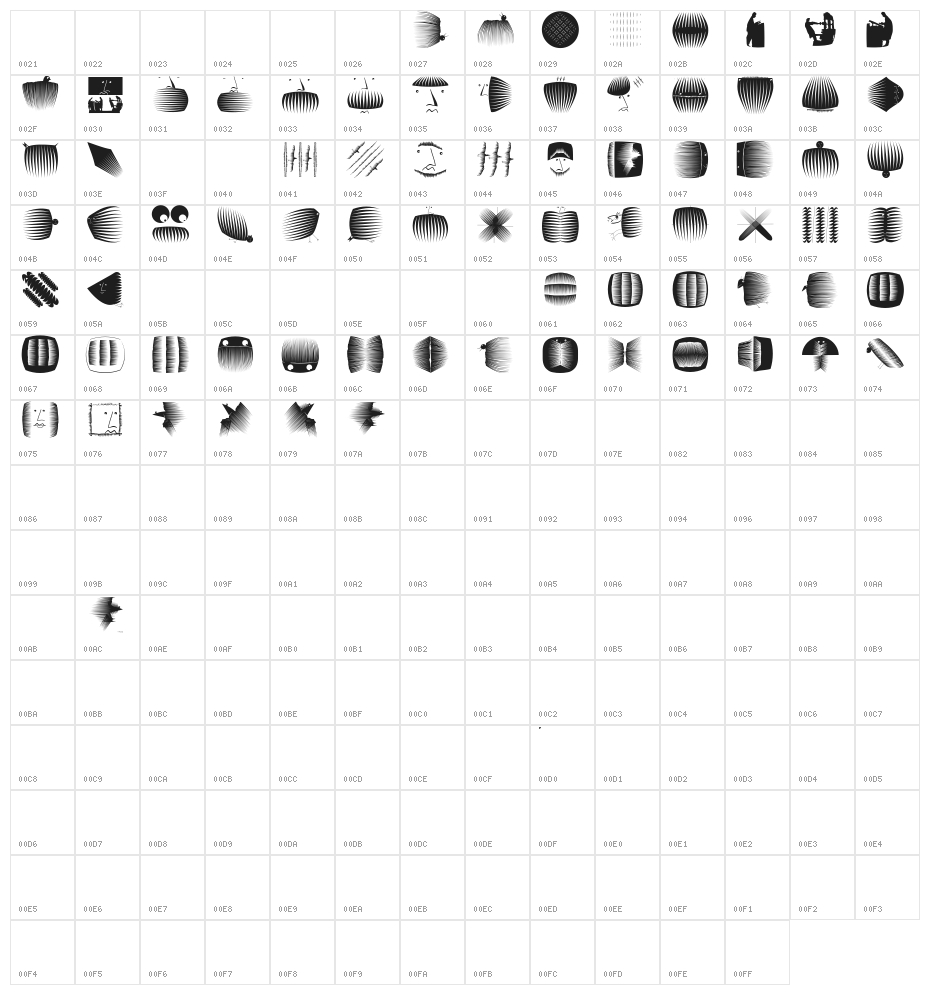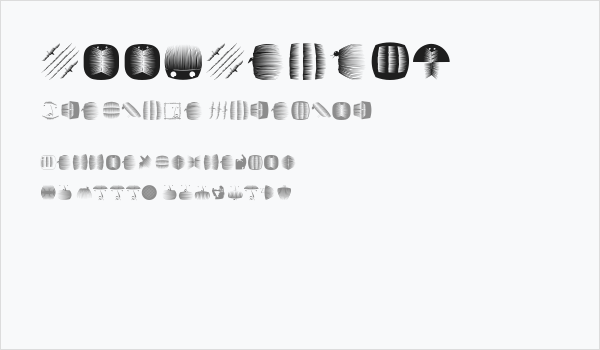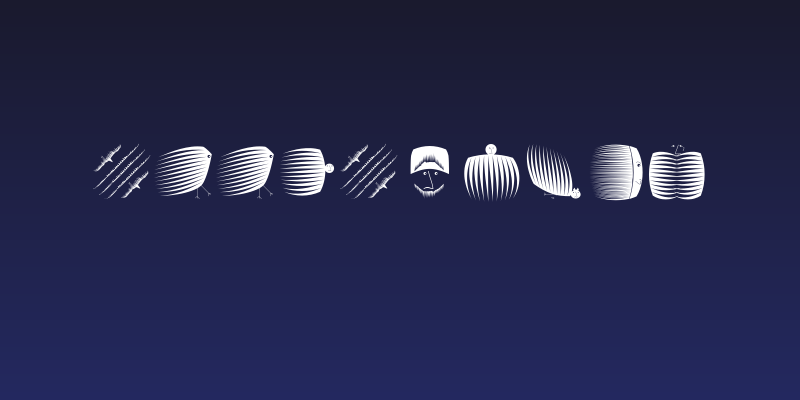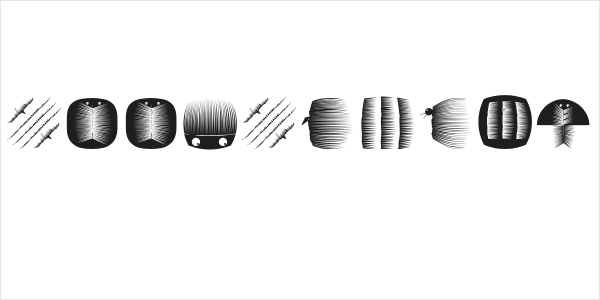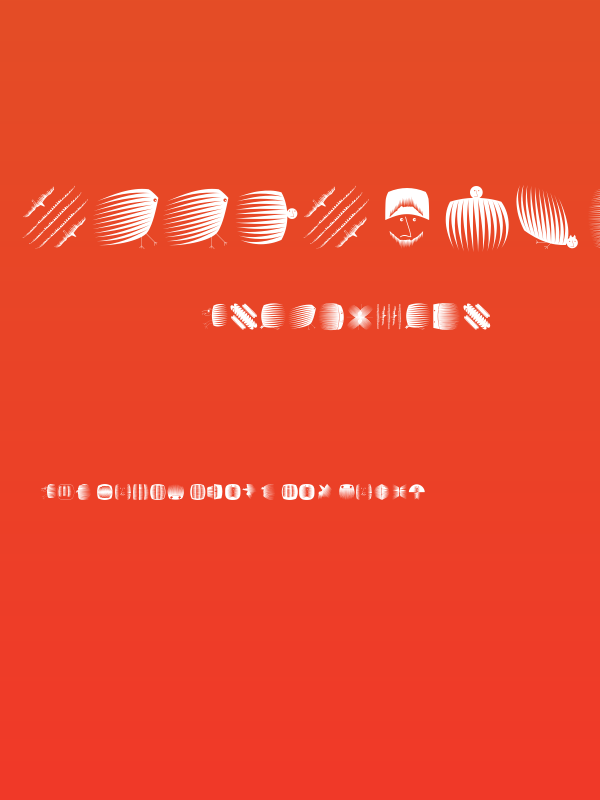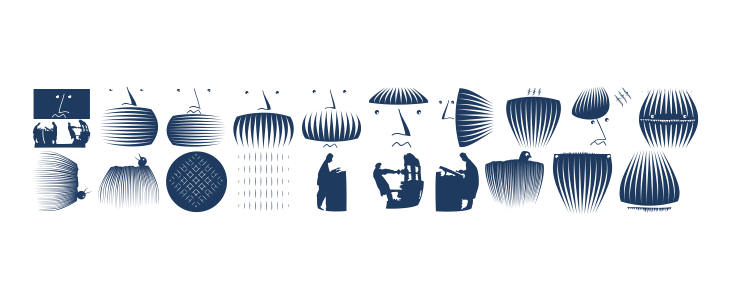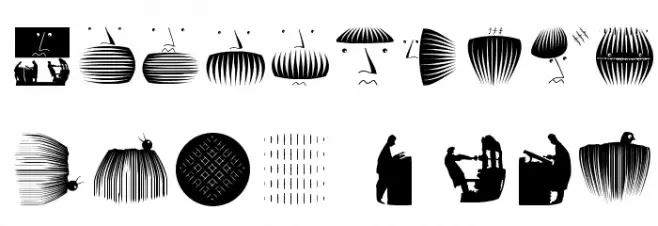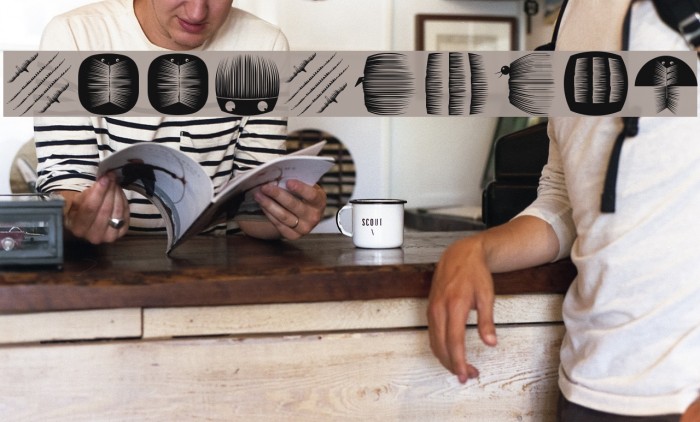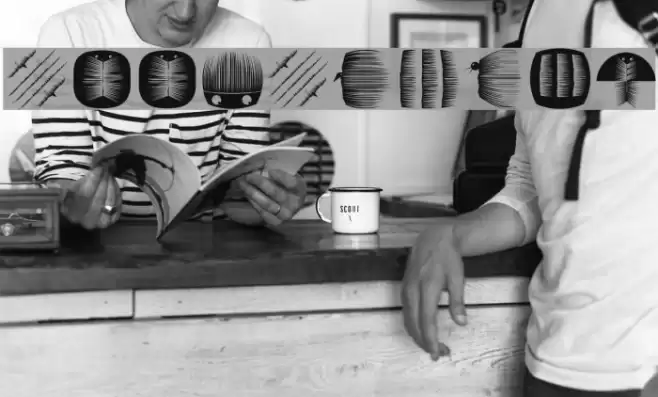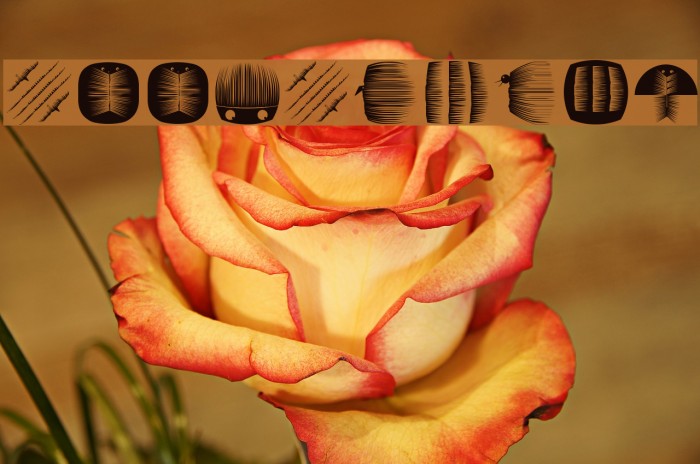
BookBeings Font
BookBeings Description
A highly decorative and conceptual font where each character is illustrated as a stylized book or book-like creature, blending organic and geometric forms with playful, abstract details. The glyphs feature a mix of solid and gradient fills, with some incorporating faces, insects, or human figures, creating a whimsical and narrative-driven visual language.
| Overall Style | Decorative, Whimsical, Artistic |
| Use Case | Logos, Headlines, Posters, Book covers |
| Proposed Projects | Children's book covers, editorial illustrations, educational posters, creative branding, art installations. |